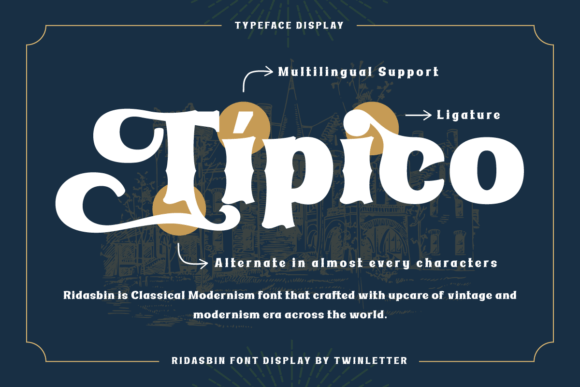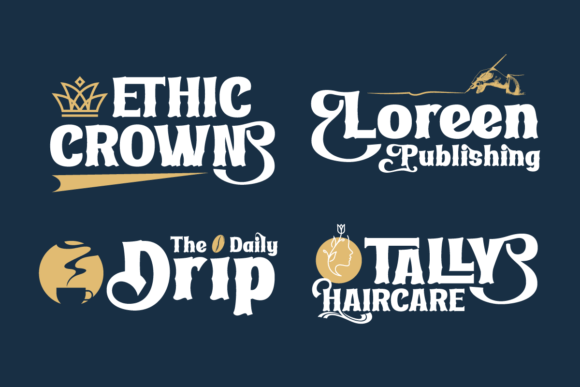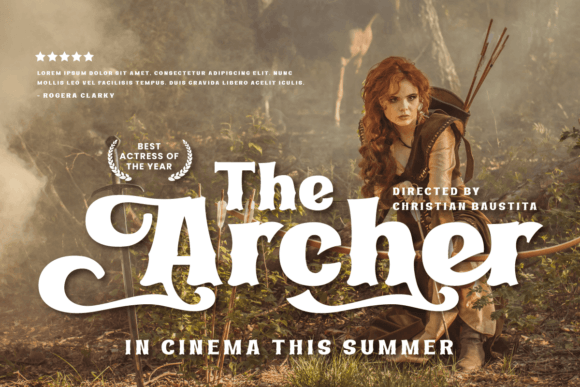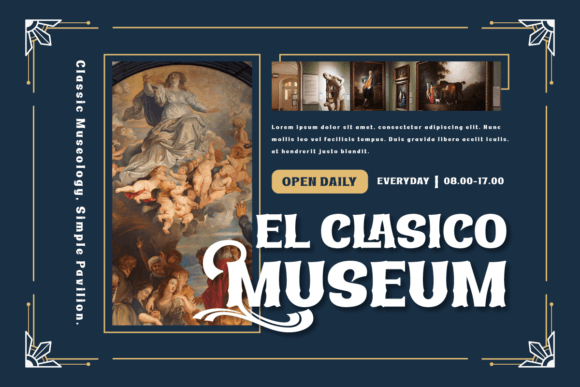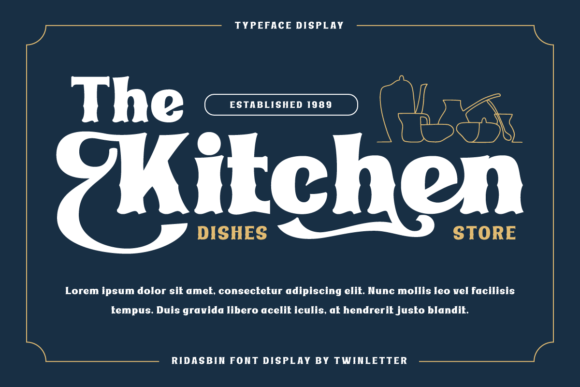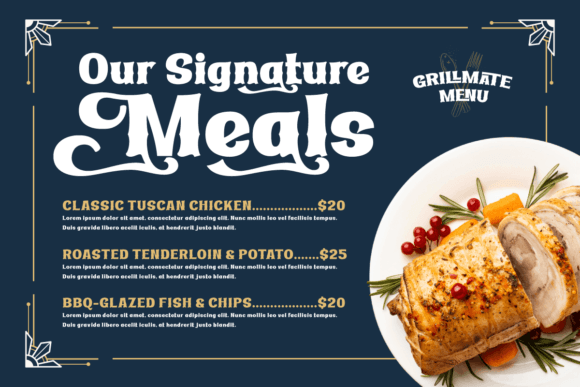
Introduction to Ridasbin Font
Have you ever been working on a creative project and struggled to find the perfect font that exudes elegance and sophistication? You’re not alone. As designers, we’ve all been there, searching for that one special font that brings our designs to life. Well, say hello to Ridasbin Font, the ultimate design resource that’s about to become your new best friend.
Ridasbin Font is more than just a font – it’s a statement piece that adds a touch of classic modernism to any design. With its high-quality, transparent background, and perfect proportions, this serif font is the perfect addition to any creative project. Whether you’re working on a poster, brochure, or any other design, Ridasbin Font will give you the professional and classy look you’re aiming for.
Key Features of Ridasbin Font
- Unique, hand-drawn design ideal for creative projects and artistic expressions.
- Perfect for use in graphic design, digital art, and typography-based creative projects.
- Unique characteristics, such as organic shapes and subtle texture, add a touch of personality to any design.
Honest Review: Ridasbin Font
I recently stumbled upon the Ridasbin Font, and I must say, it’s a great addition to any design project. The font offers a unique and modern look that’s perfect for creative projects that need a touch of elegance.
Here are some of the things that work well with the Ridasbin Font:
- Unique and modern design
- High quality and detailed typography
- Transparent background, making it easy to use on any design
- Perfect for creative projects that need a touch of elegance
- Not ideal for projects that require a more conservative or traditional look
- Limited character set, may not be suitable for longer text
Overall, I’m impressed with the Ridasbin Font. It’s a great design resource that can add a unique touch to any creative project. With its high quality and modern design, it’s definitely worth checking out.
Common Use Cases for Ridasbin Font
The Ridasbin Font is perfect for a wide range of creative projects, including logos, business cards, and marketing materials. Its versatility and high-quality design make it an ideal choice for any design project.